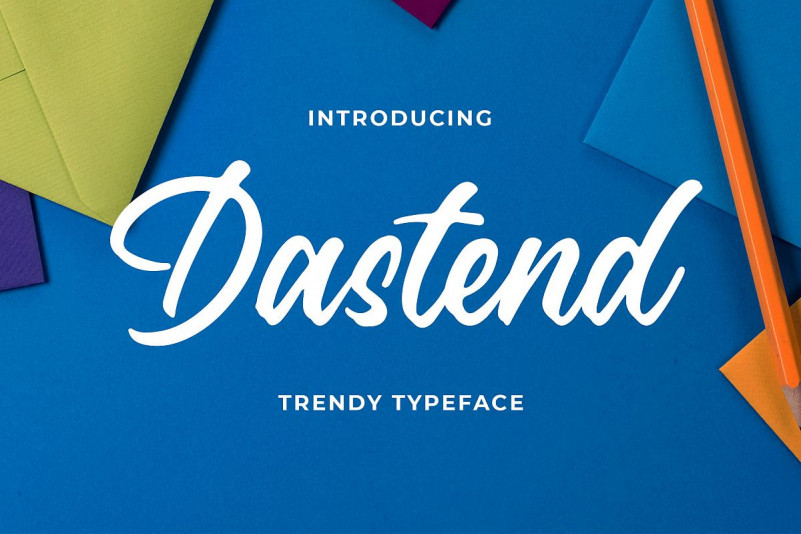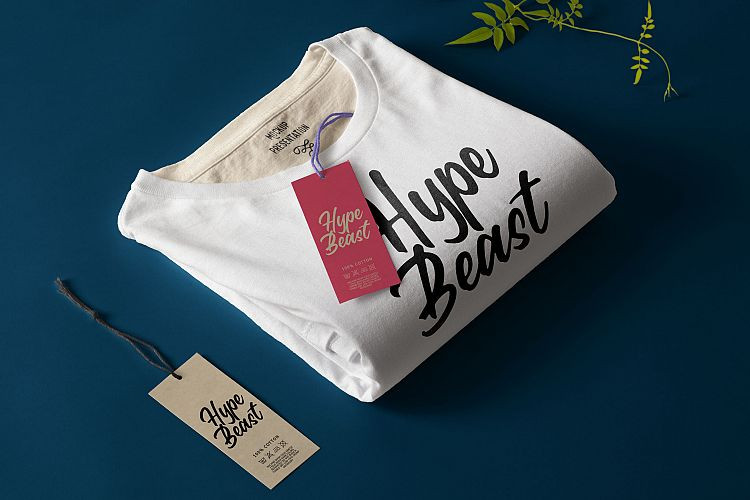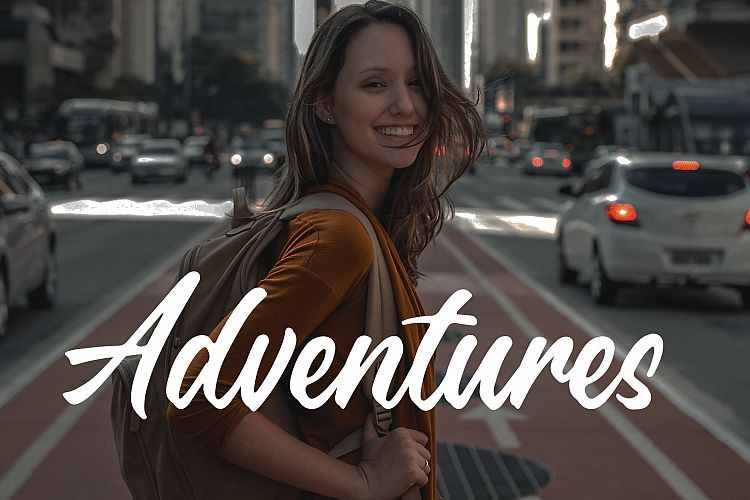
Dastend Font
Introducing a new Handbrush typeface called Dastend Trendy Script Typeface. Dastend good for signature, logotype, poster, social media, book cover, tshirt design, packaging and any more.